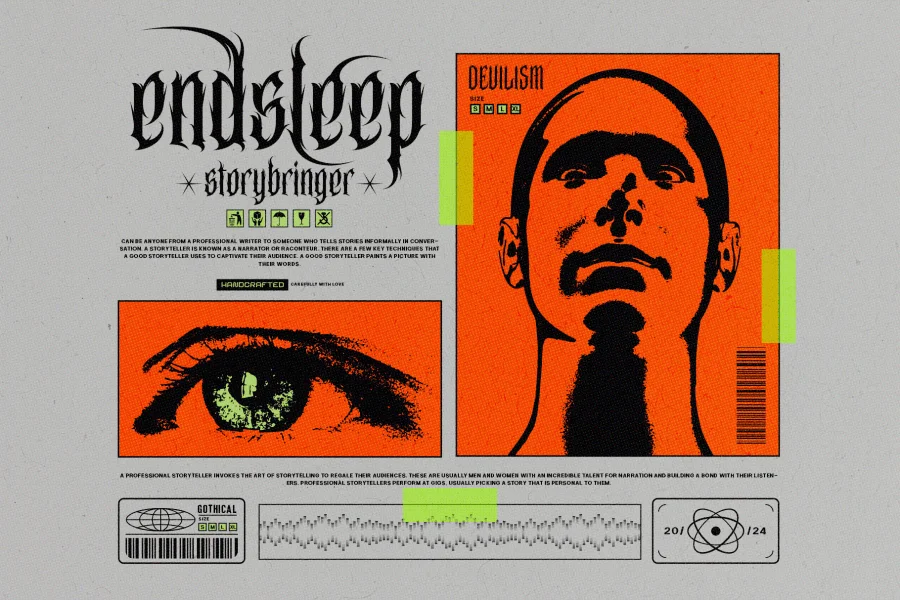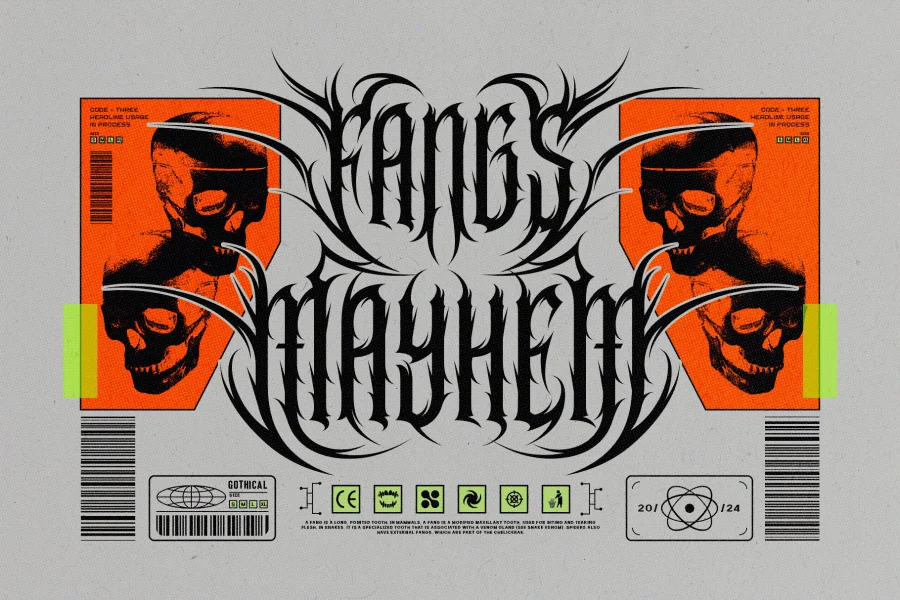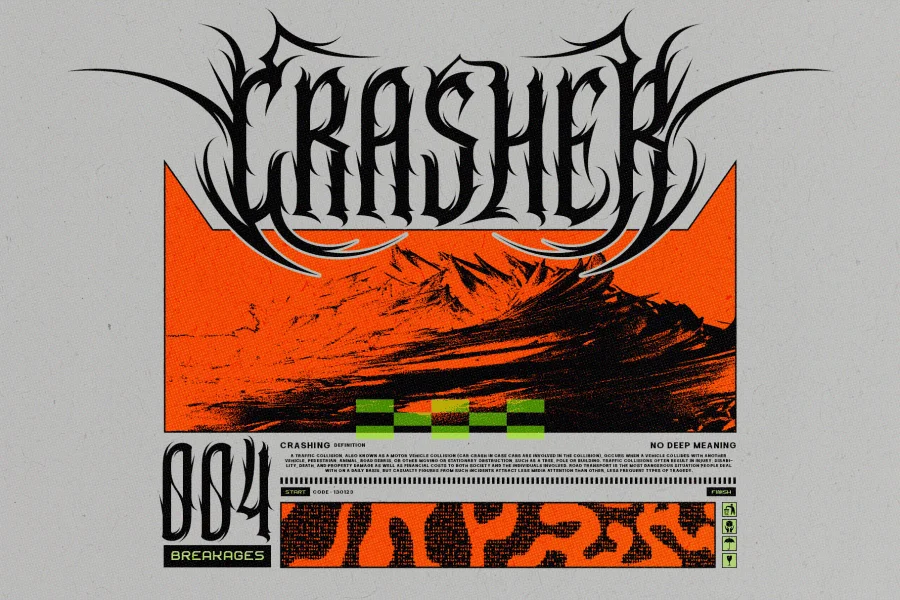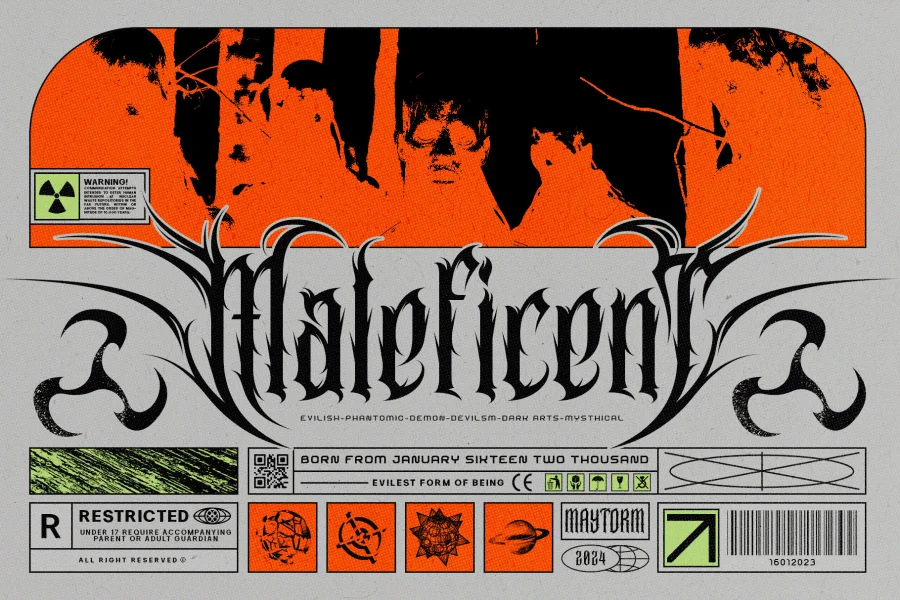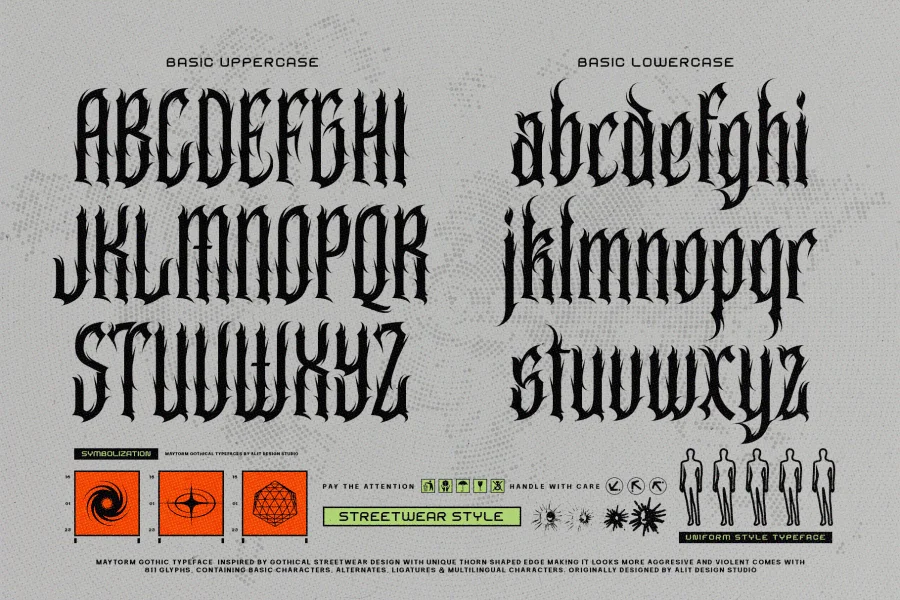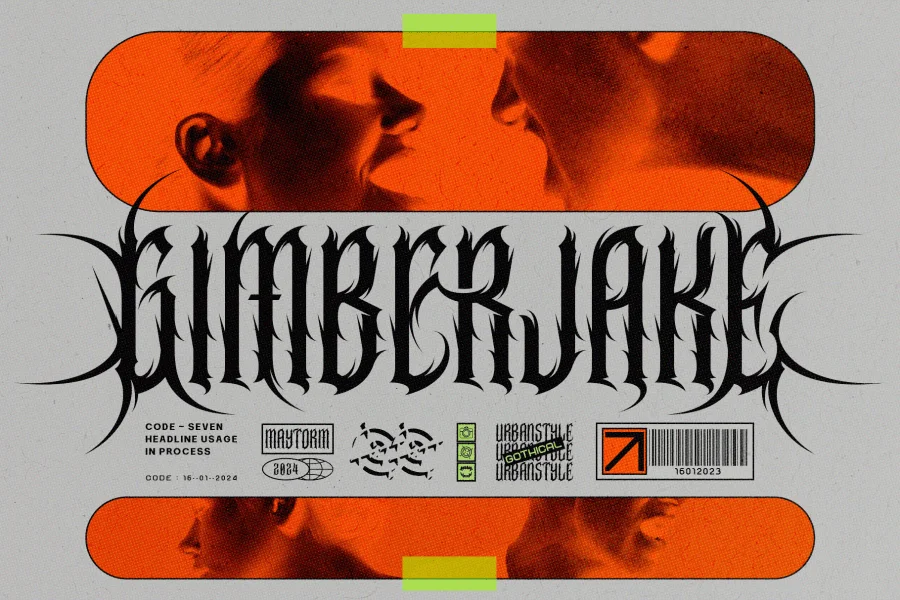
Introducing Maytron – Unleash the Raw Power of Metal Brutalism in Typography!
Unleash the relentless spirit of metal with Maytron, a cutting-edge font designed to embody the raw intensity of brutalism in the world of metal music. Maytron fuses the strength of industrial aesthetics with a modern concept of metal spikes, creating a typeface that resonates with the ferocity and energy of the metal genre.